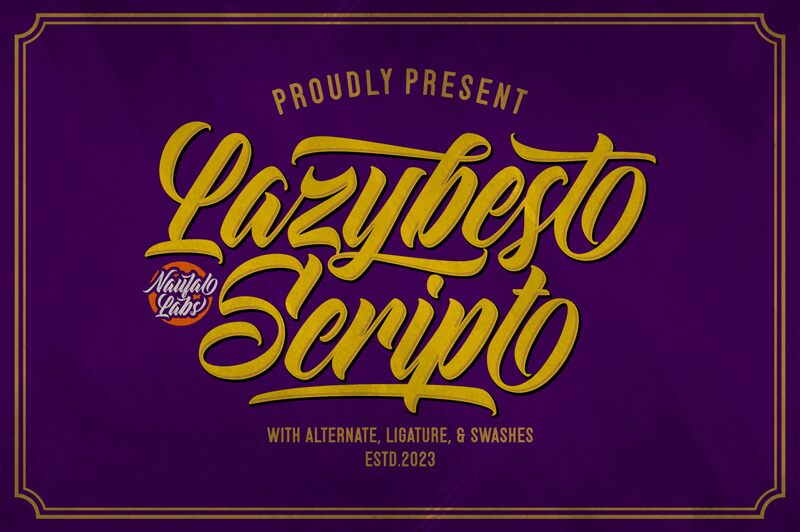
Lazybest, designed by Naufal Labs, is a captivating calligraphy font that exudes strength, confidence, and dynamism. Its bold strokes and flowing curves create a sense of movement and nostalgia, making it perfect for adding character to your designs. Lazybest's unique style allows for quick and easy creation of lettering and logotypes, ensuring your projects stand out.
Ideal for branding, packaging, invitations, and more, Lazybest brings a lively elegance to any design context. Its distinctive look makes it suitable for both modern and vintage themes, providing versatility while maintaining a strong visual impact. With Lazybest Script, your designs will resonate with a confident flair that's hard to ignore.
Designed by MOH. MA'IN from Naufal Labs Studio in 2023.